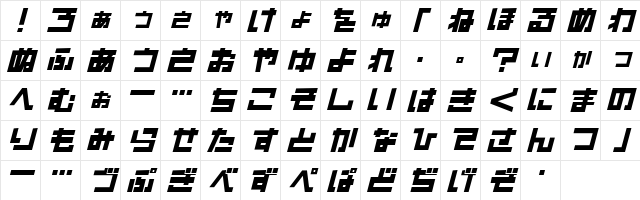
I2sunplaza Regular
Design Context for I2sunplaza
I2sunplaza is a composed and adaptable typeface that performs quietly and consistently across a wide range of design contexts.